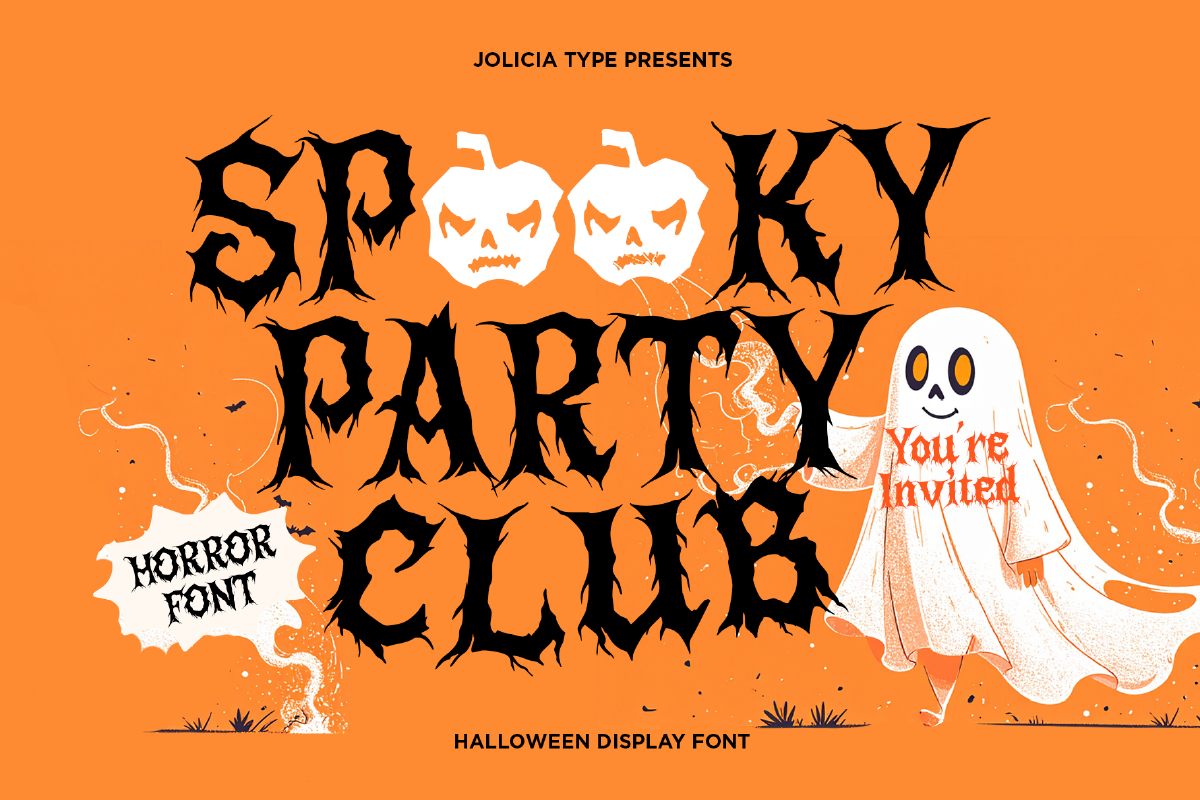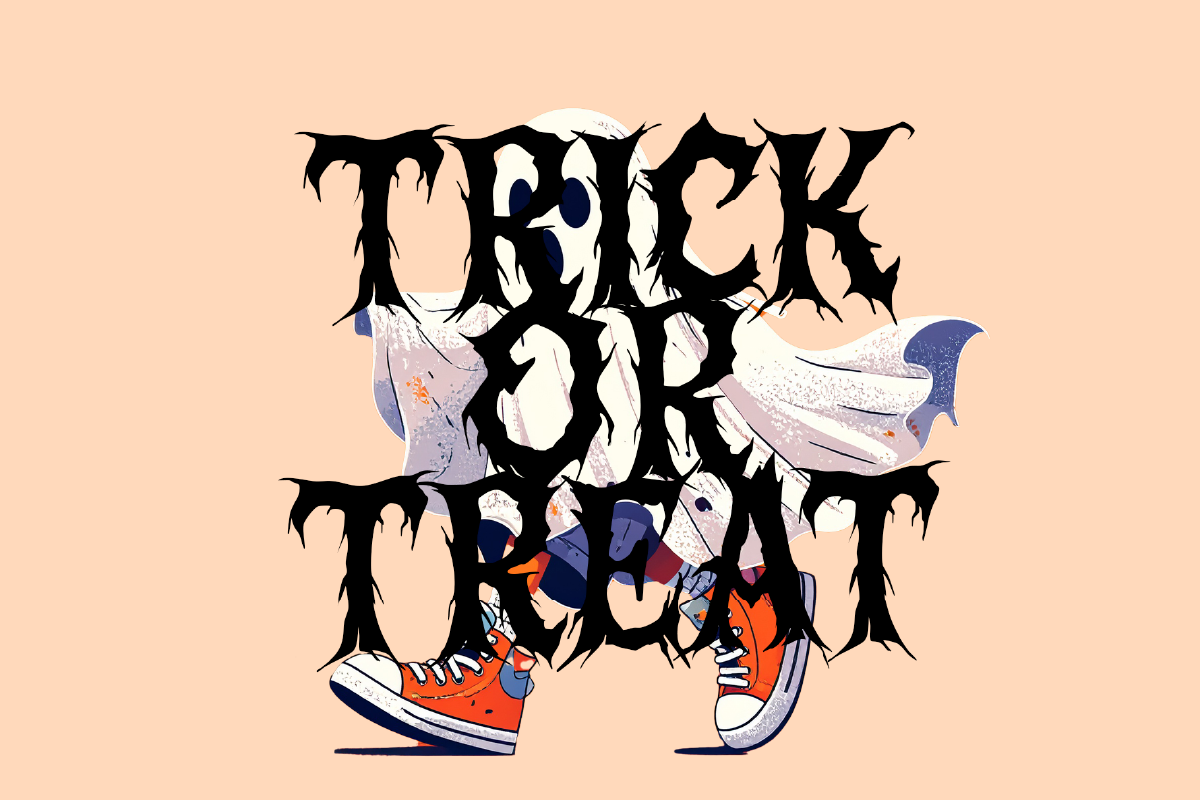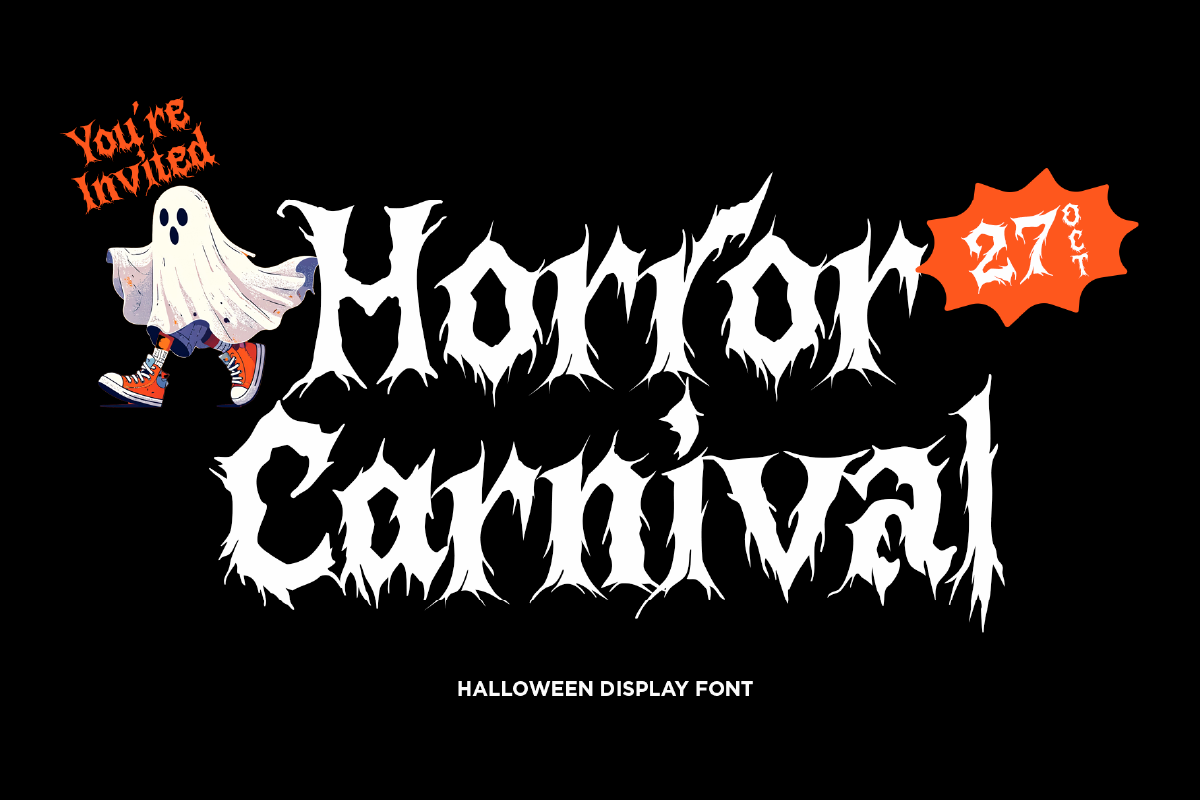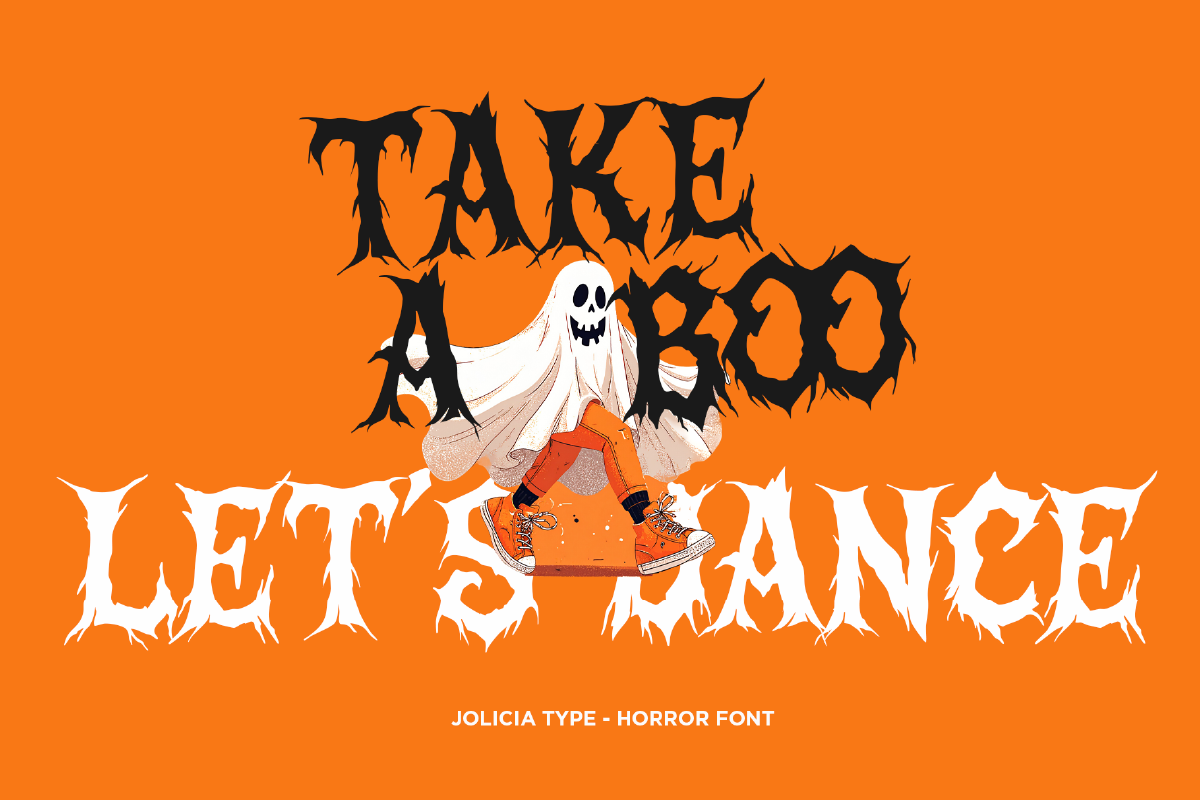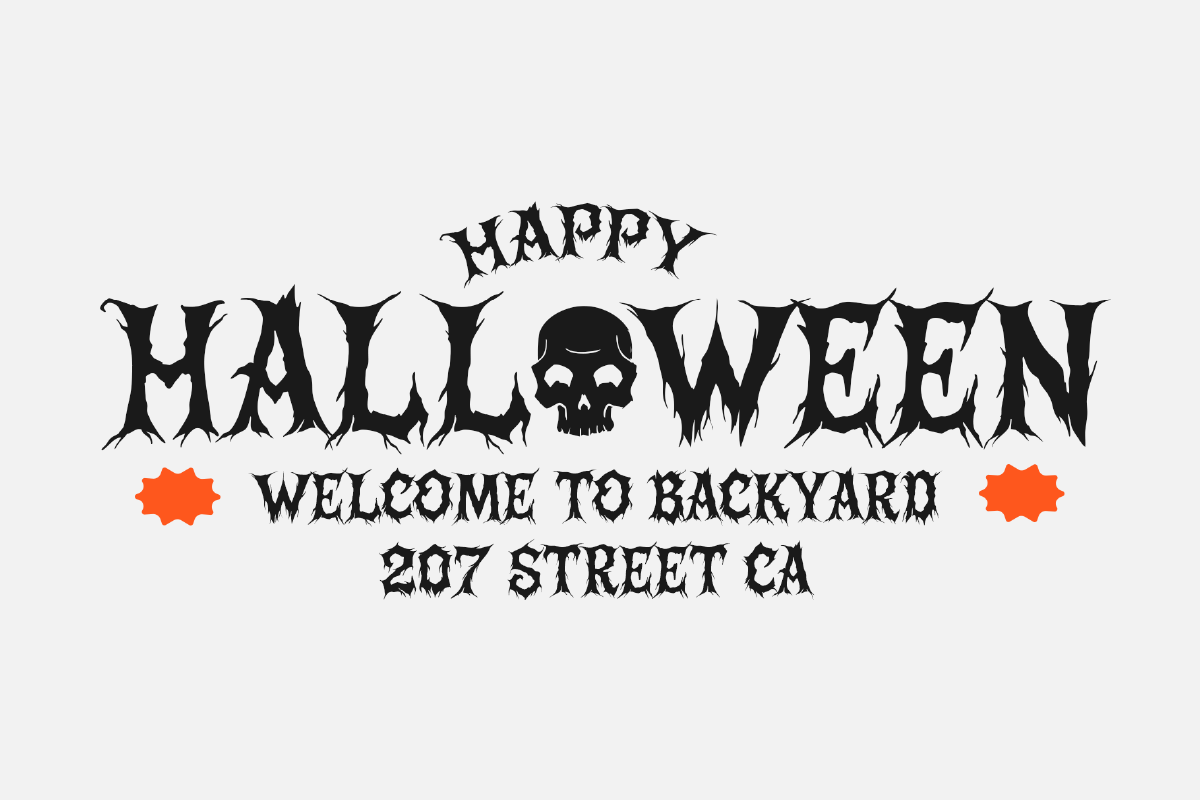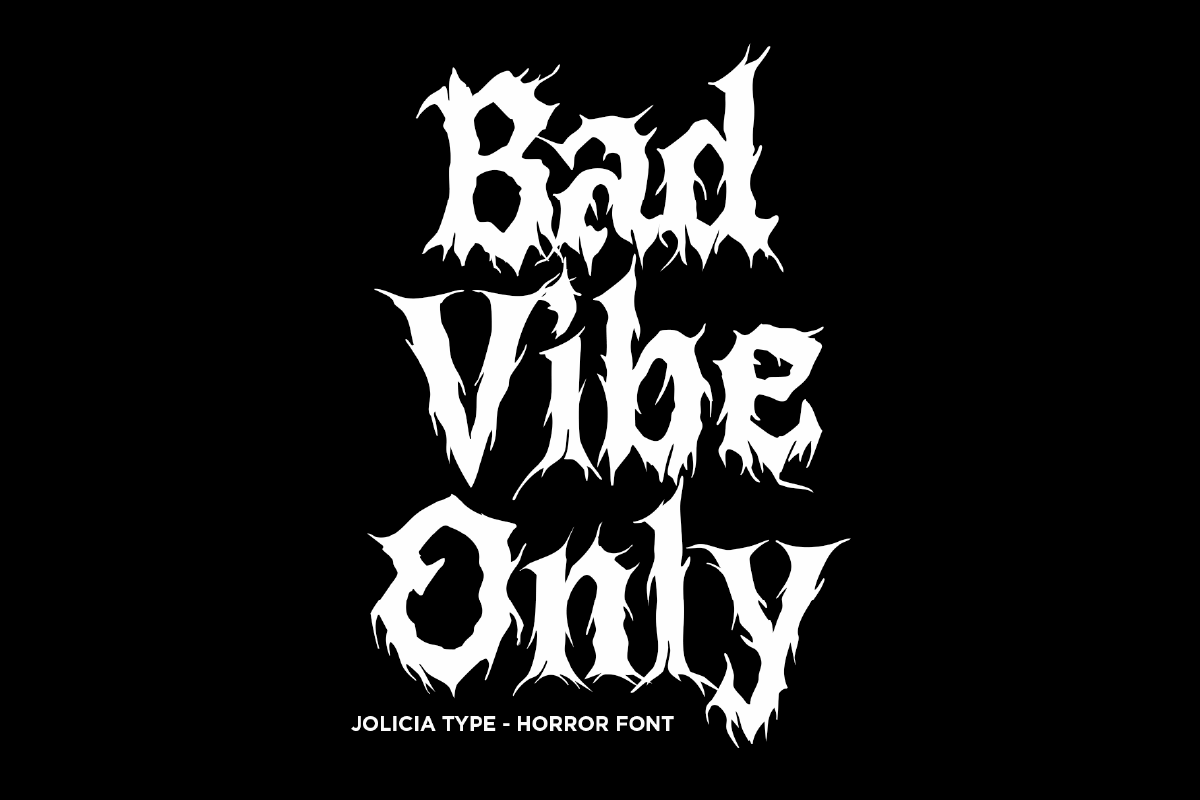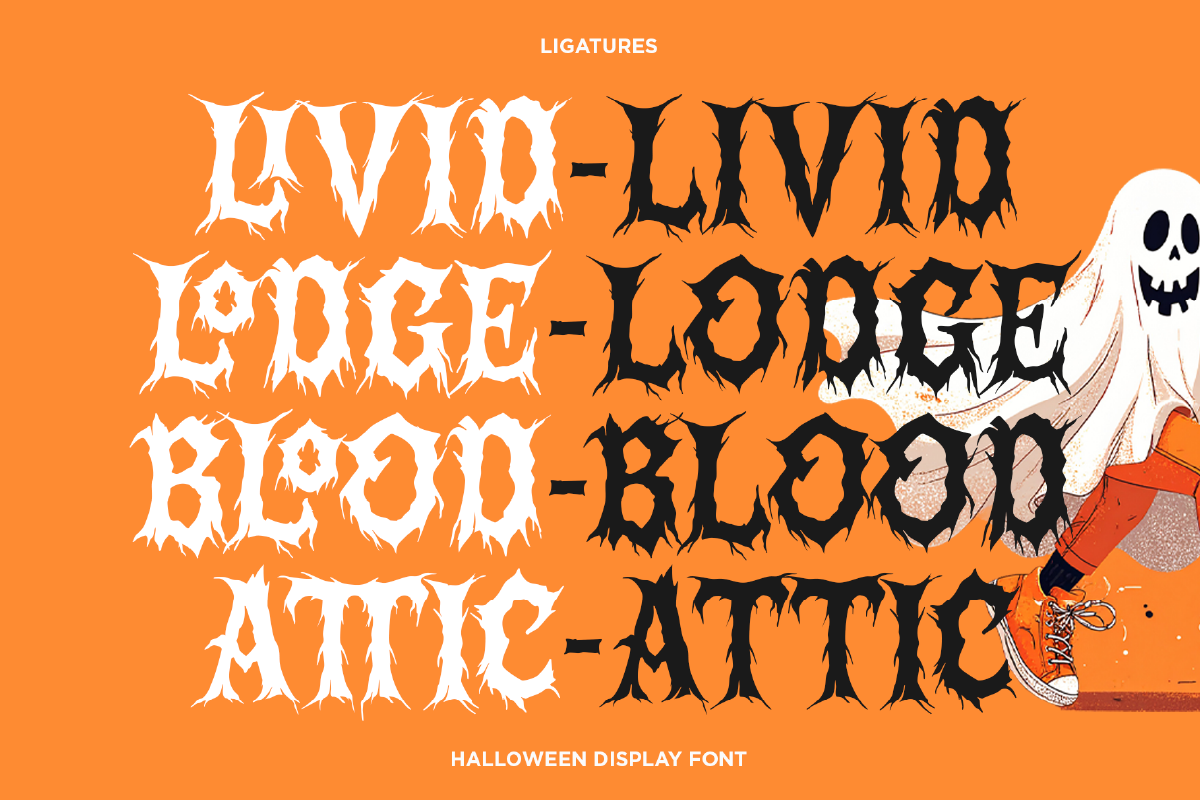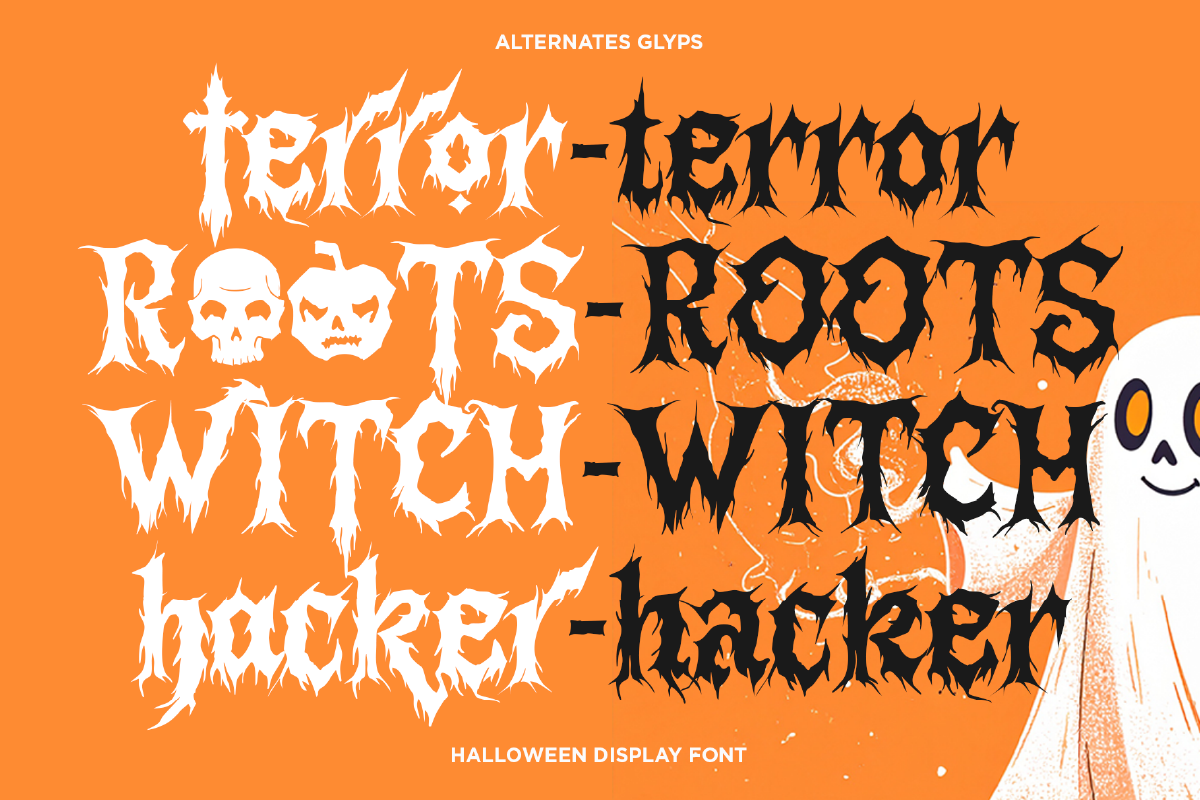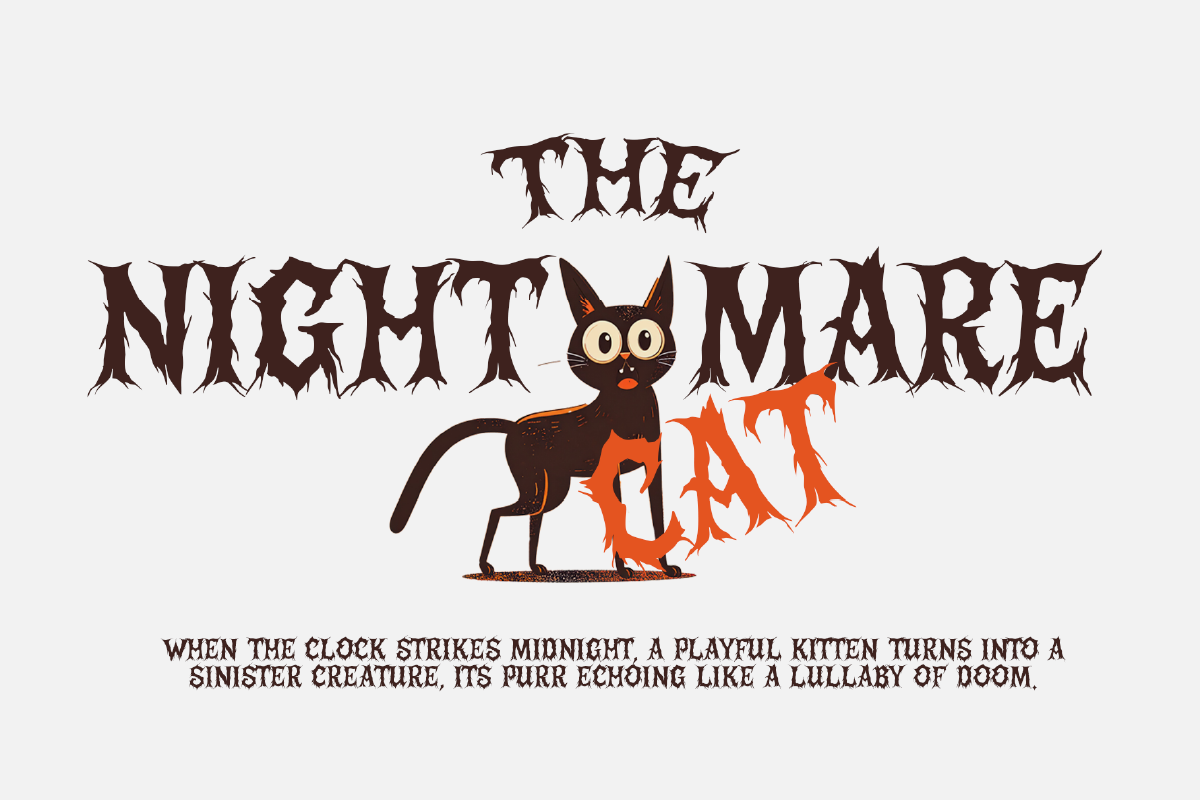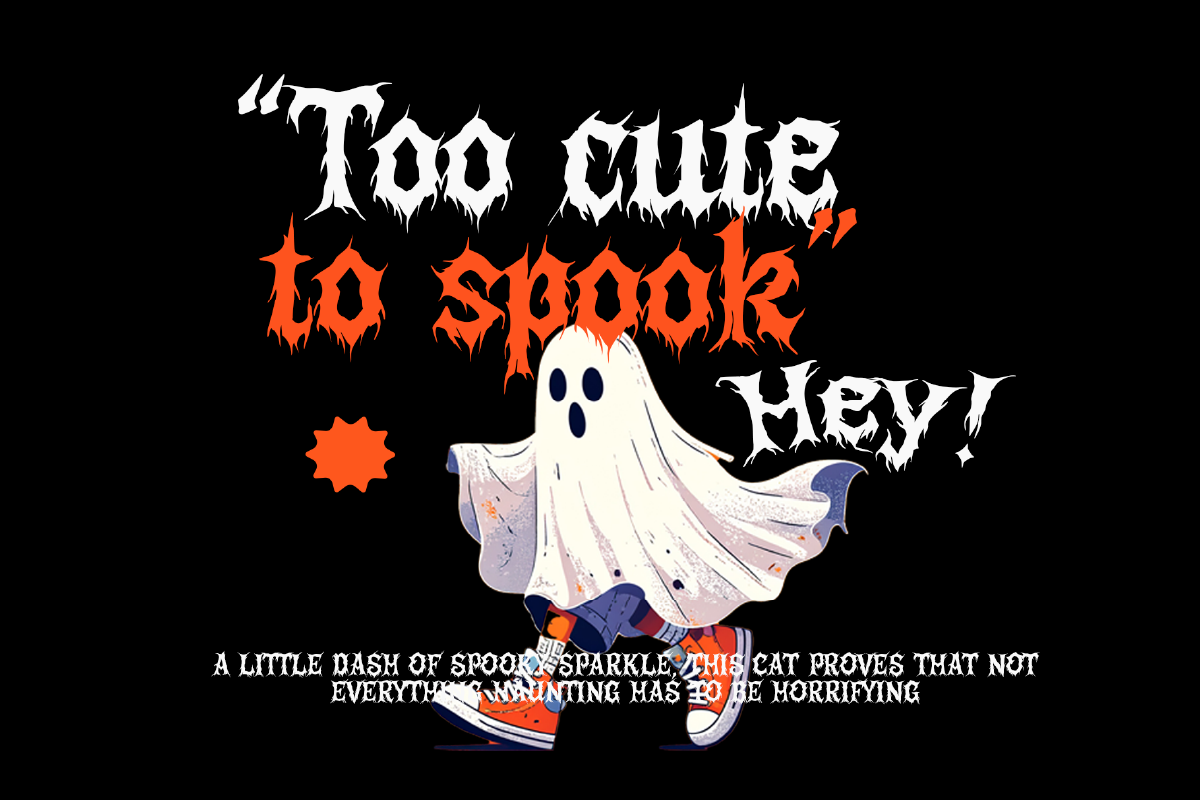
Spooky Party Club Font is a playful horror Halloween typeface that blends creepy charm with festive fun. Designed with detailed tree-root letterforms, it feels as if the alphabet has grown straight out of a haunted forest. Perfect for Halloween posters, party invitations, spooky branding, trick-or-treat goodies, and more, this typeface brings both eerie and cheerful vibes to your projects. Add frightful fun and a lively spirit to your Halloween night with Spooky Party Club!
Spooky Party Club